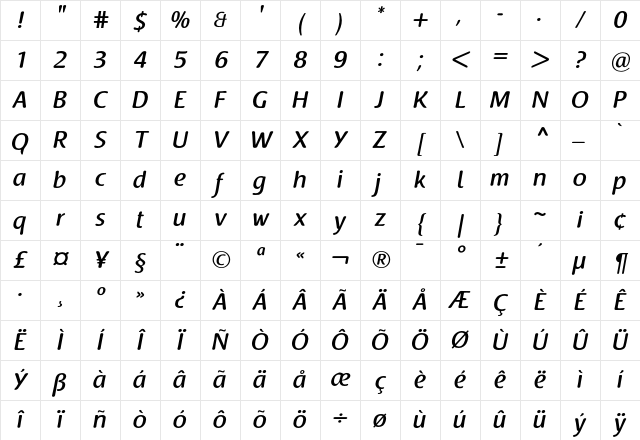
Raspoutine Medium is a composed and adaptable typeface that performs quietly and consistently across a wide range of design contexts. The slanted form adds forward momentum and visual energy.
Pro Tip: Use Raspoutine Medium for emphasis, pull quotes, and subheadings where its slanted energy can add rhythm to the layout.